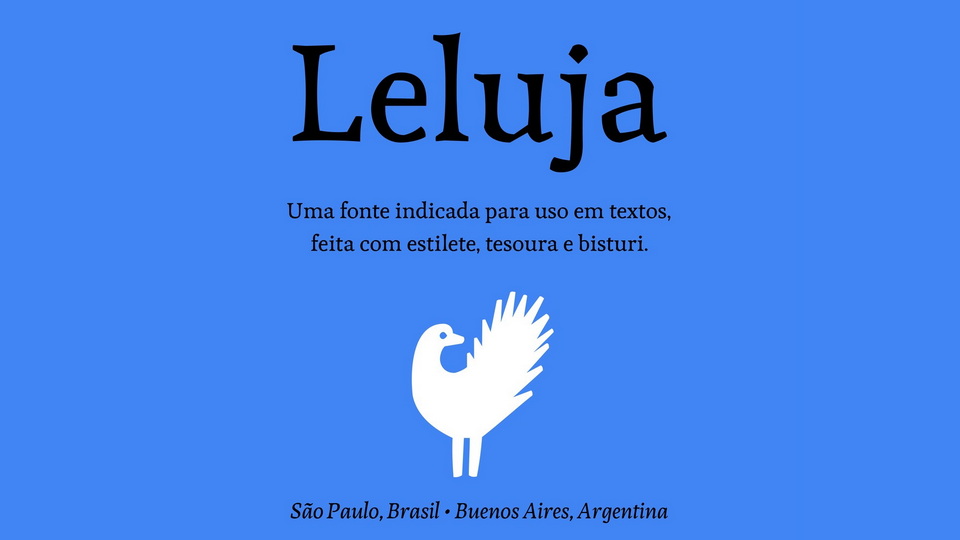
Leluja Original Font Family › Fontesk
Download Leluja Original font, a serif typeface indicated for printed texts but also performs well in titles. The forms and counterforms of Leluja Original font are inspired by the version polish for the art of cut paper the Wycinankies.